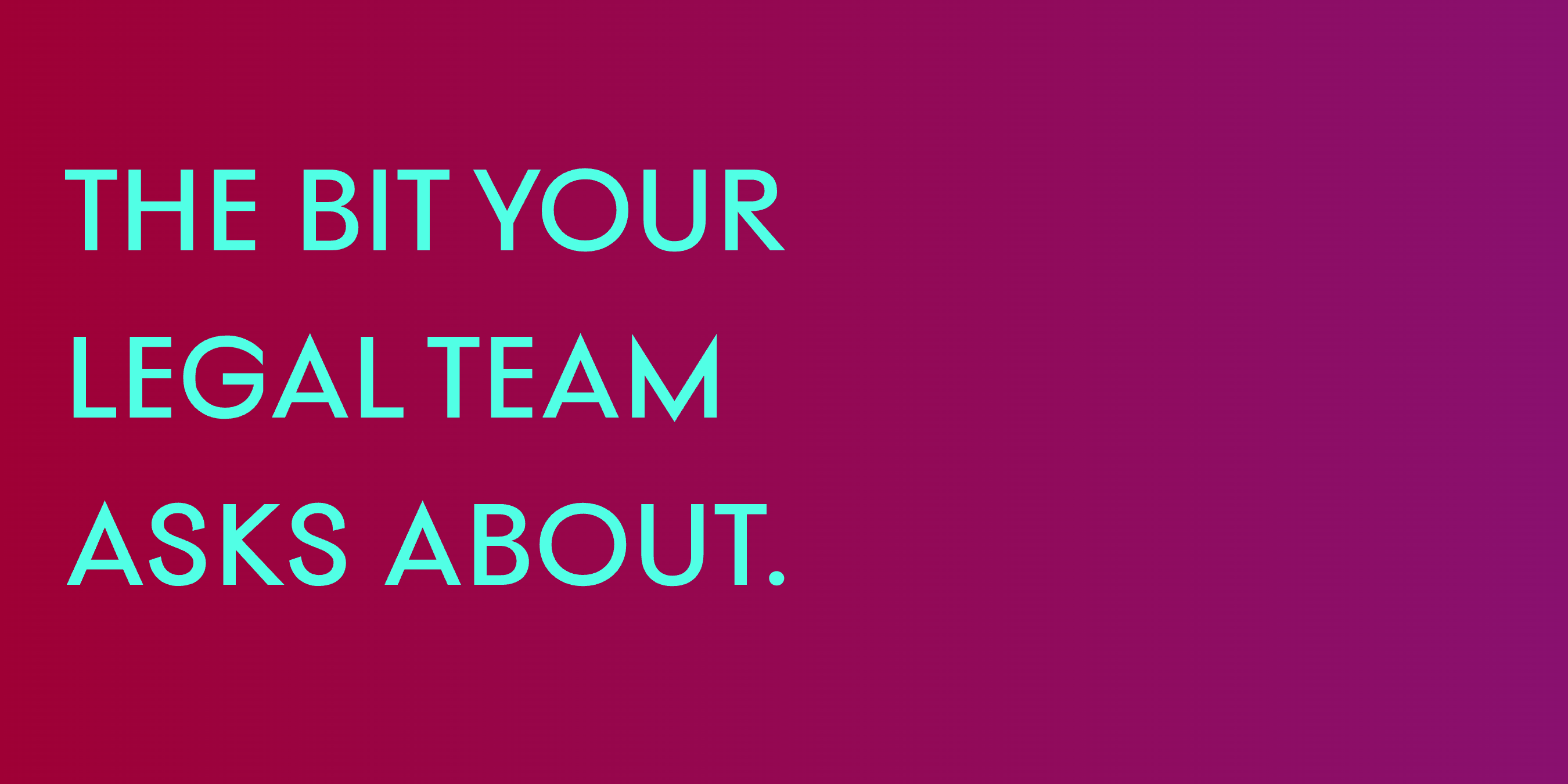
Where to Buy Premium Fonts for Commercial Design Work
Legal Approves. Set in Mod by Mojomox
If you're a designer choosing where to license a font for a brand identity, packaging system, or editorial project, the marketplace can feel noisy. This guide is a quick orientation, then ten Mojomox fonts that designers in branding agencies, beauty companies, and editorial studios use most often.
What to look for when buying a font
Three things matter more than the rest:
2. The full weight family, not just a single cut. A single-weight font limits how far you can take the brand identity. Real design systems need at least Bold and Regular, ideally with Light and Medium too. The Mojomox catalog ships every font as a nine-weight family with variable-font support.
3. OpenType features and alternates. Stylistic alternates for letters like 'a', 'g', 'R', and 'e' let you customize a wordmark for a logo without commissioning custom hand-lettering. Cheap fonts usually skip this. The Mojomox premium fonts include the alternates, stylistic sets, and ligatures designers actually use in Illustrator and Figma.
Ten Mojomox fonts to start with
These ten cover the most common use cases working designers run into. Pick by aesthetic and the use case you're solving for.
1. Bauhaus Soft
Bauhaus Soft font preview
Bold organic serif with just enough contrast to feel premium without losing warmth. The most-used Mojomox font for beauty, packaging, and editorial branding work.
2. Vole
Vole font preview
Geometric sans-serif with fluid counters. Reads as friendly and modern at once. A go-to for tech-adjacent consumer brands that want to feel human.
3. Auria Sans
Auria Sans font preview
Modern sans-serif with soft inner corners. The softness gives it warmth at body text sizes, and the geometric foundation keeps it clean at display sizes.
4. Saltz
Saltz font preview
Sharp condensed serif for fashion, beauty, and editorial headline work. The proportions stay distinctive at large display sizes and remain legible at text sizes.
5. Mod
Mod font preview
A modern serif with elegant proportions and confident strokes. Quietly sophisticated, without going dramatic. Good for editorial, fashion, and beauty work.
6. Apex
Apex font preview
Bold sharp sans-serif with pointy alternates. Reach for it when a brand needs presence on packaging hero panels, billboards, or sports identities.
7. Skay
Skay font preview
Handwritten bubble font with real personality. Sits between casual lettering and display type. A favorite for beauty, fashion, and Instagram-driven brands.
8. Aezra
Aezra font preview
Sharp narrow serif with long terminals. The condensed proportions give Aezra real personality at large sizes, with terminals that read editorial and almost architectural.
9. Plox
Plox font preview
Cool bubble block font with a playful toy box feel. Designers use it for kids brands, gaming, and confident retro identities.
10. Goji
Goji font preview
Playful rounded sans-serif for friendly branding. Warm shapes, weights that pair well, and readability at smaller sizes. A favorite for consumer brands.